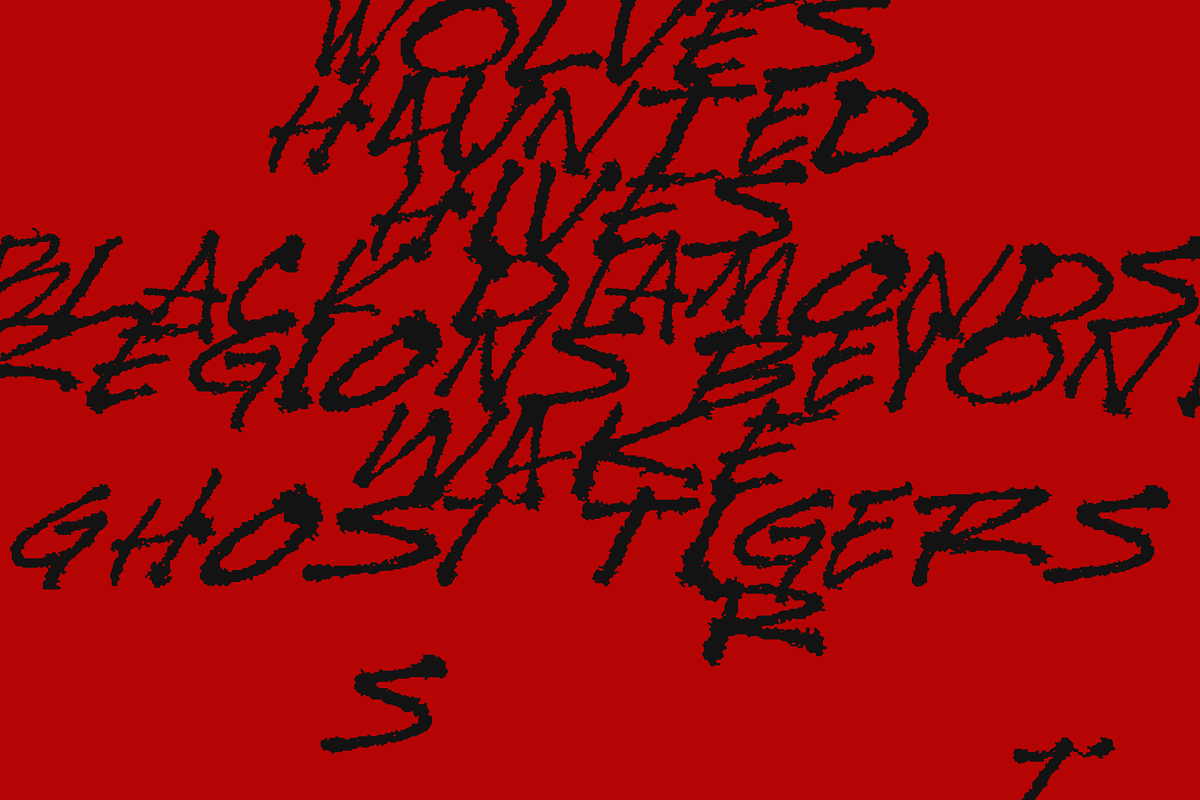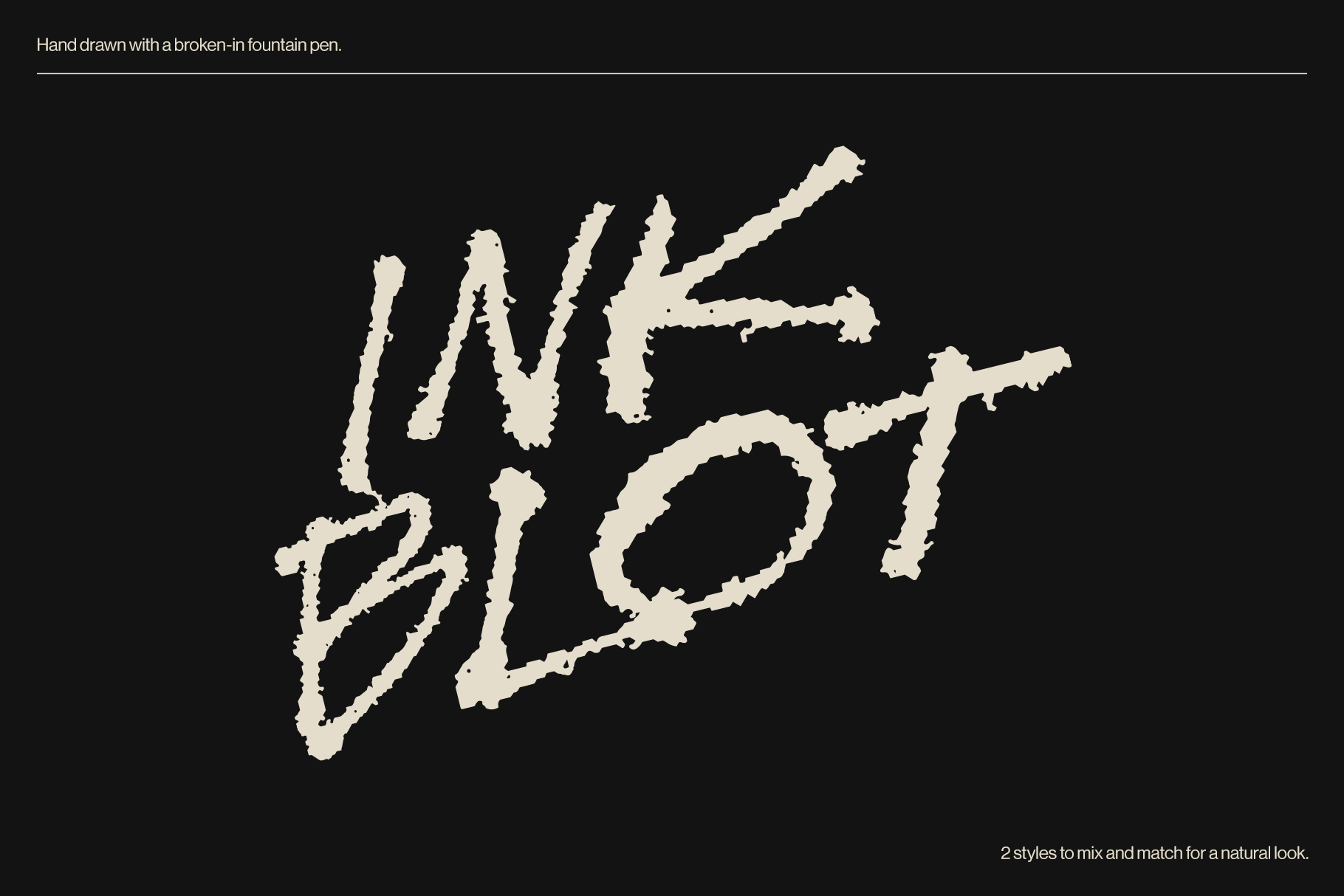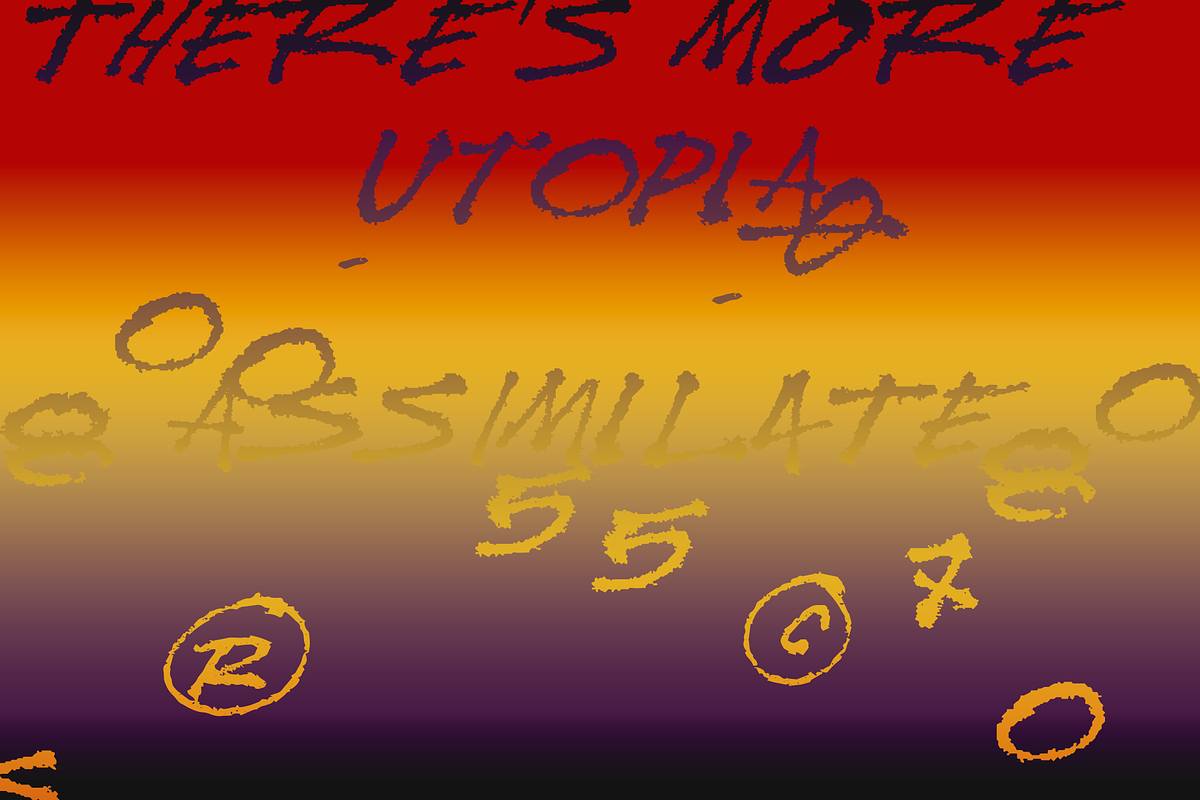
Ink Blot Handwritten Font
Ink Blot is a hand-written on recycled paper with a well broken-in preppy fountain pen typeface. Both cases share the same height to be mixed for a more natural appearance. Works great for headlines + titles, wordmarks + logos, artwork.
- Ink Blot Regular
- Two seperate styles using lower and upper cases